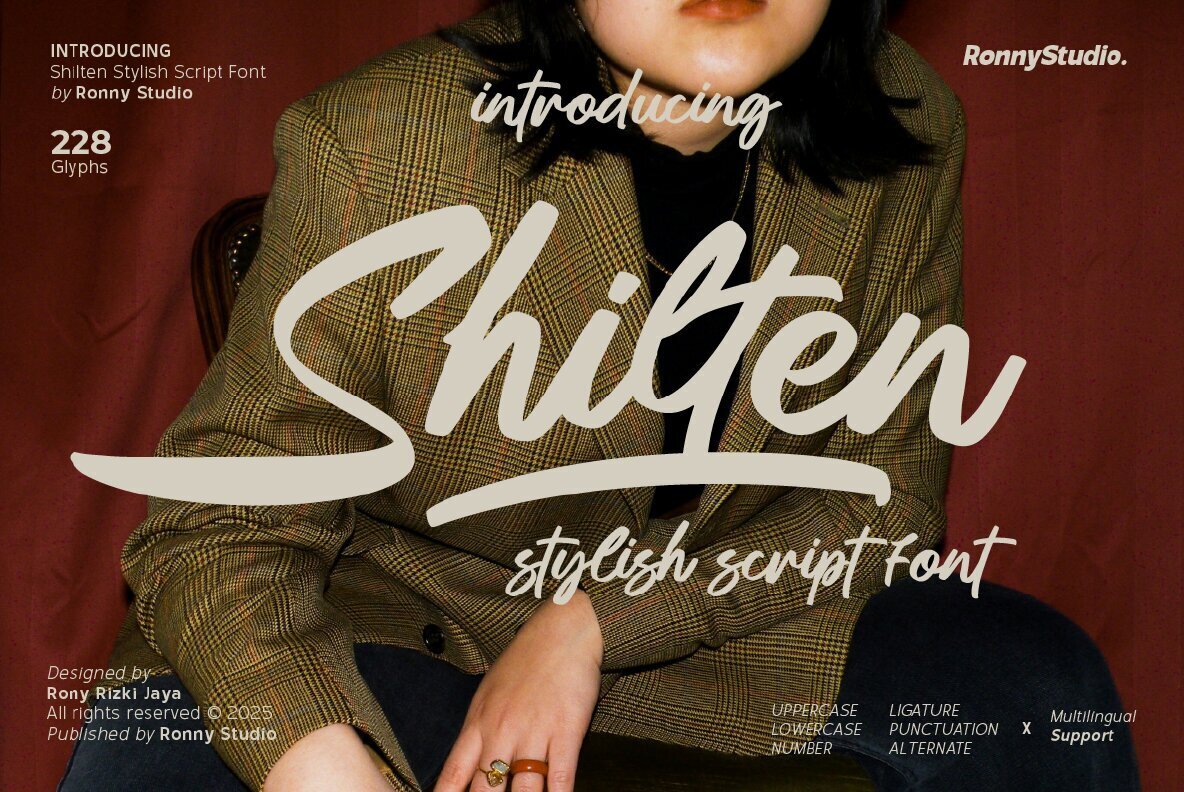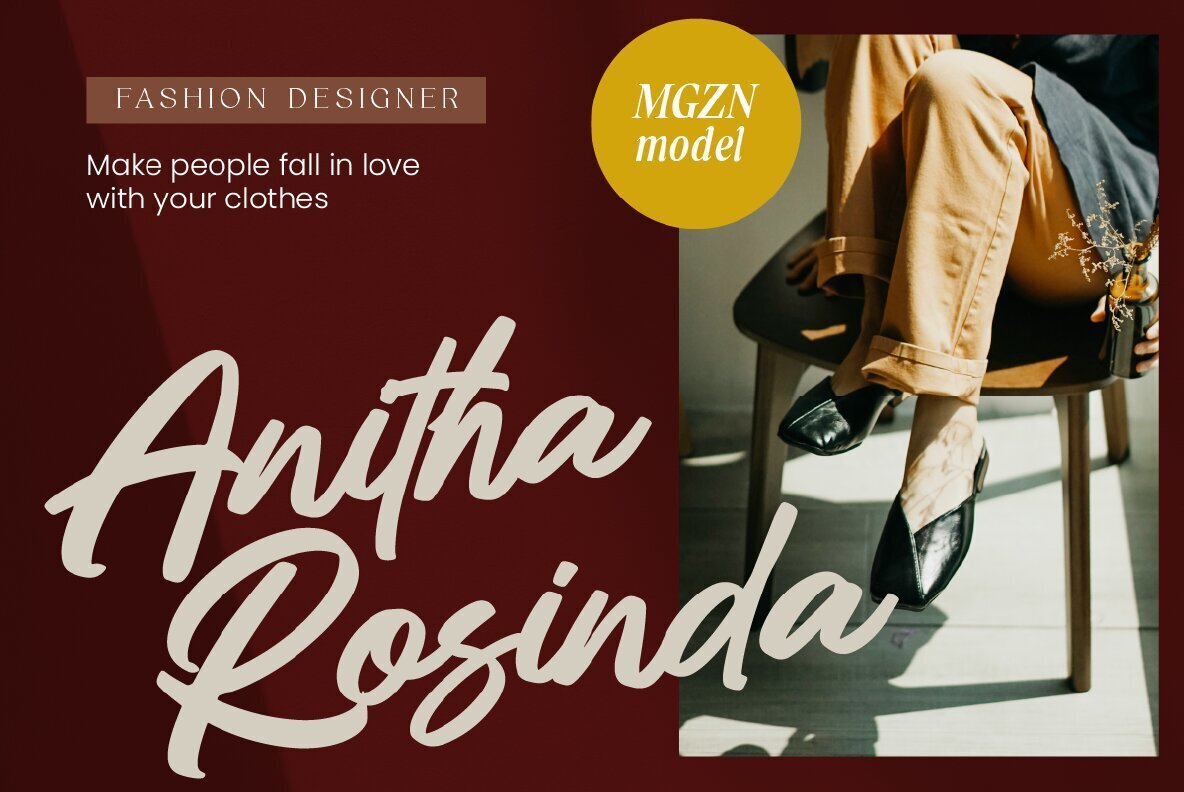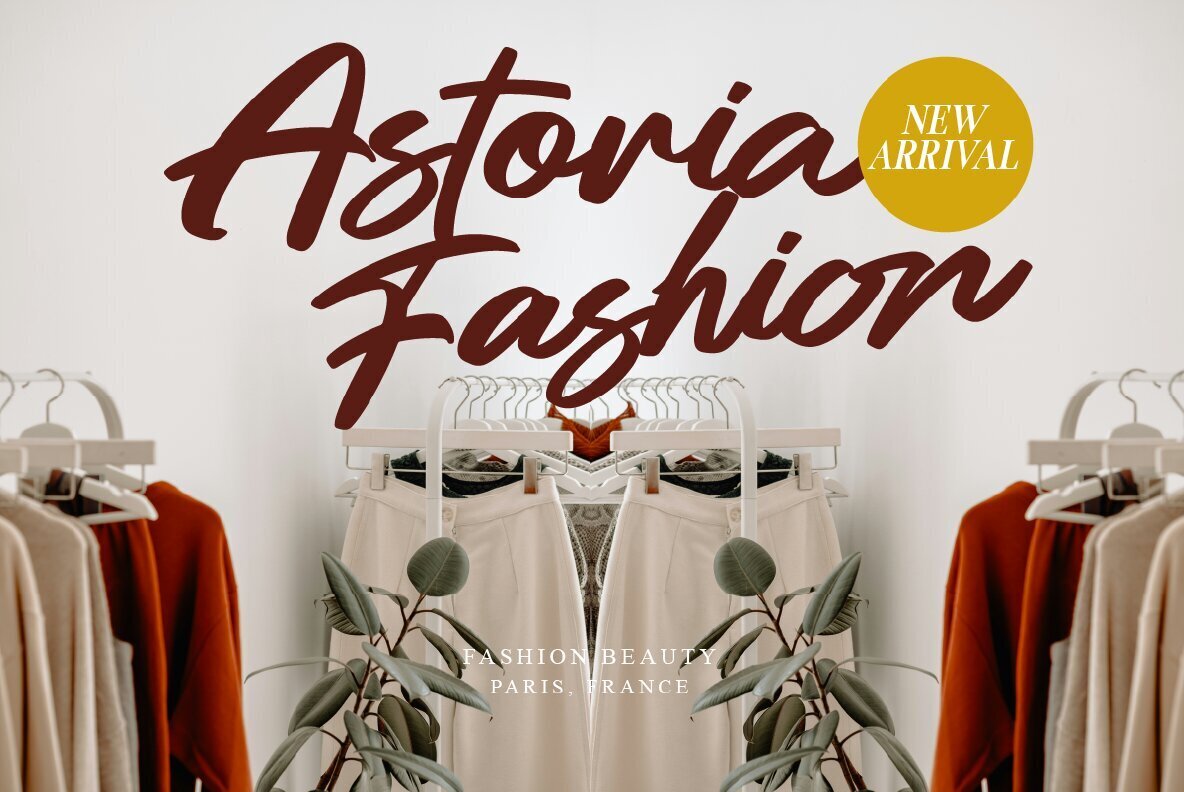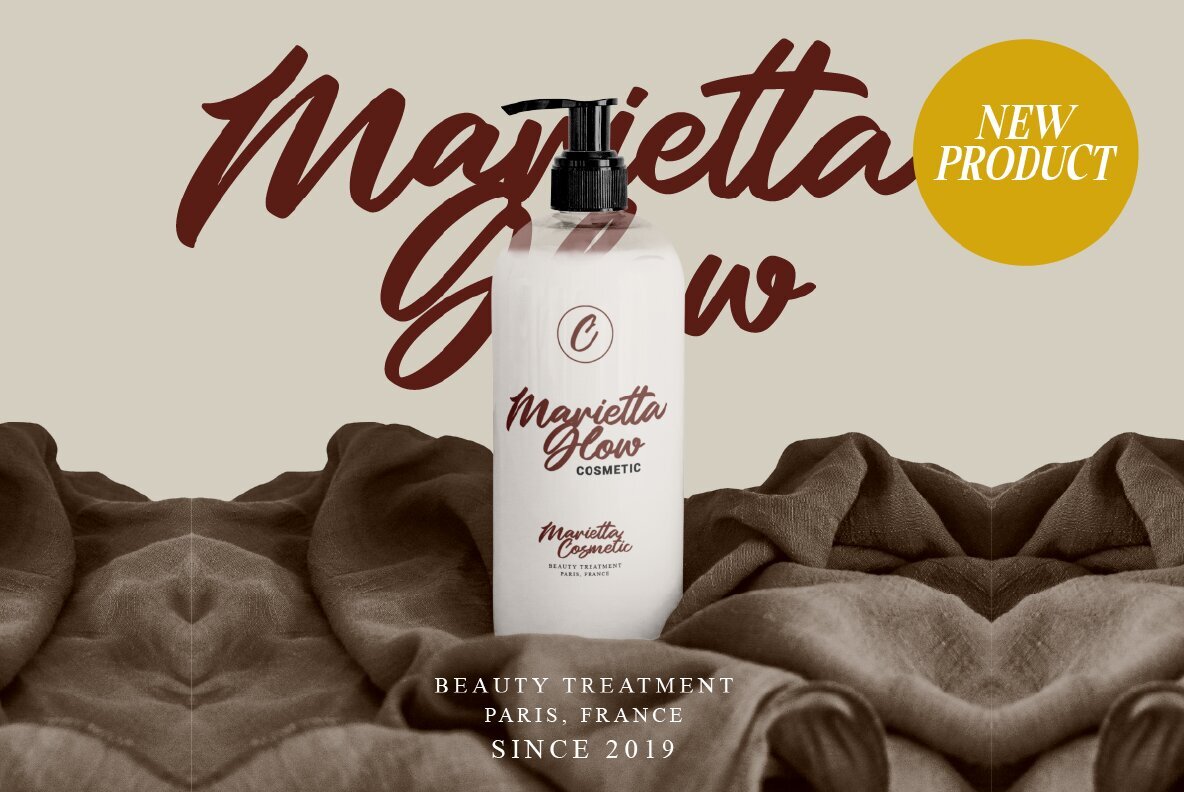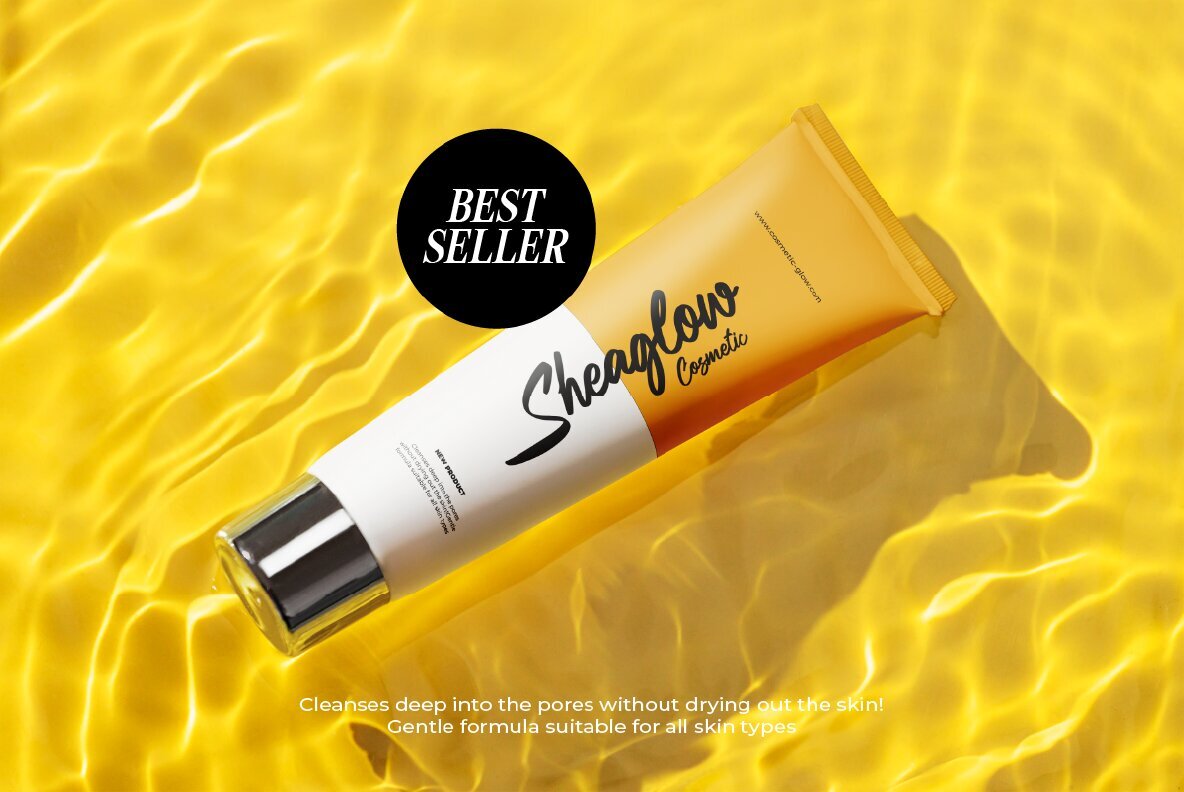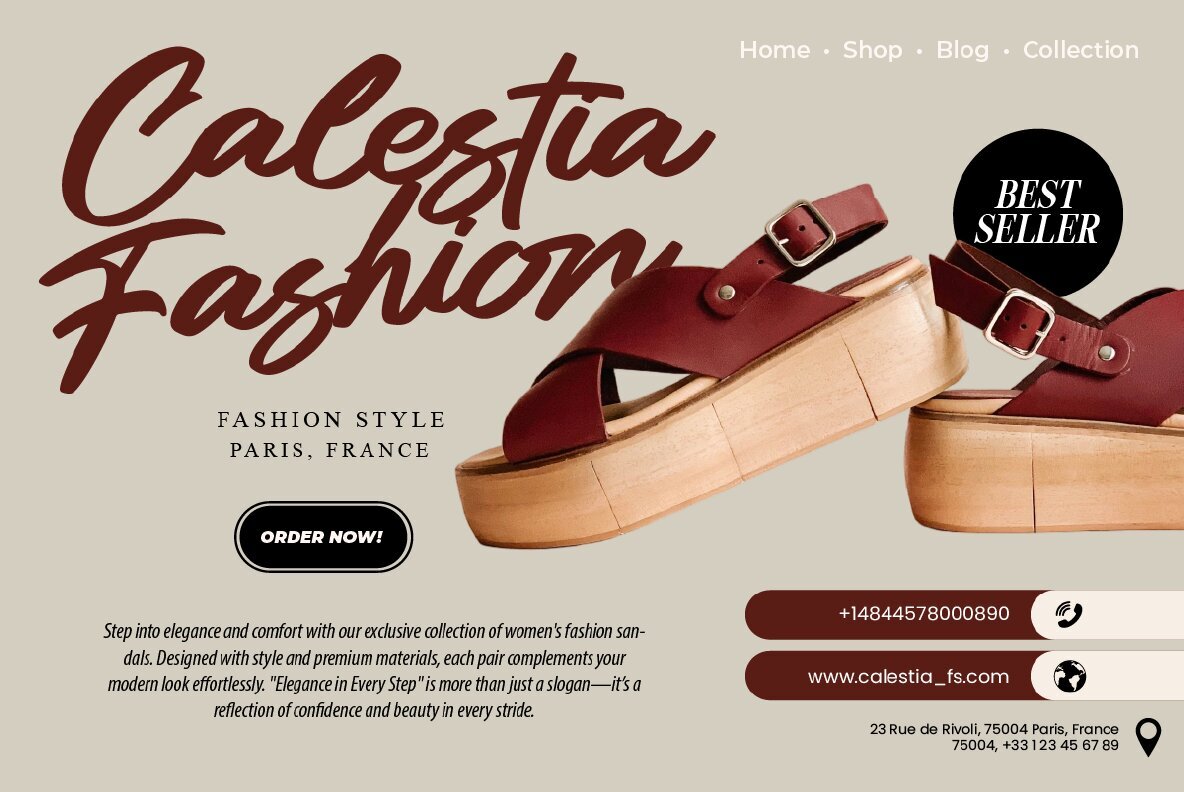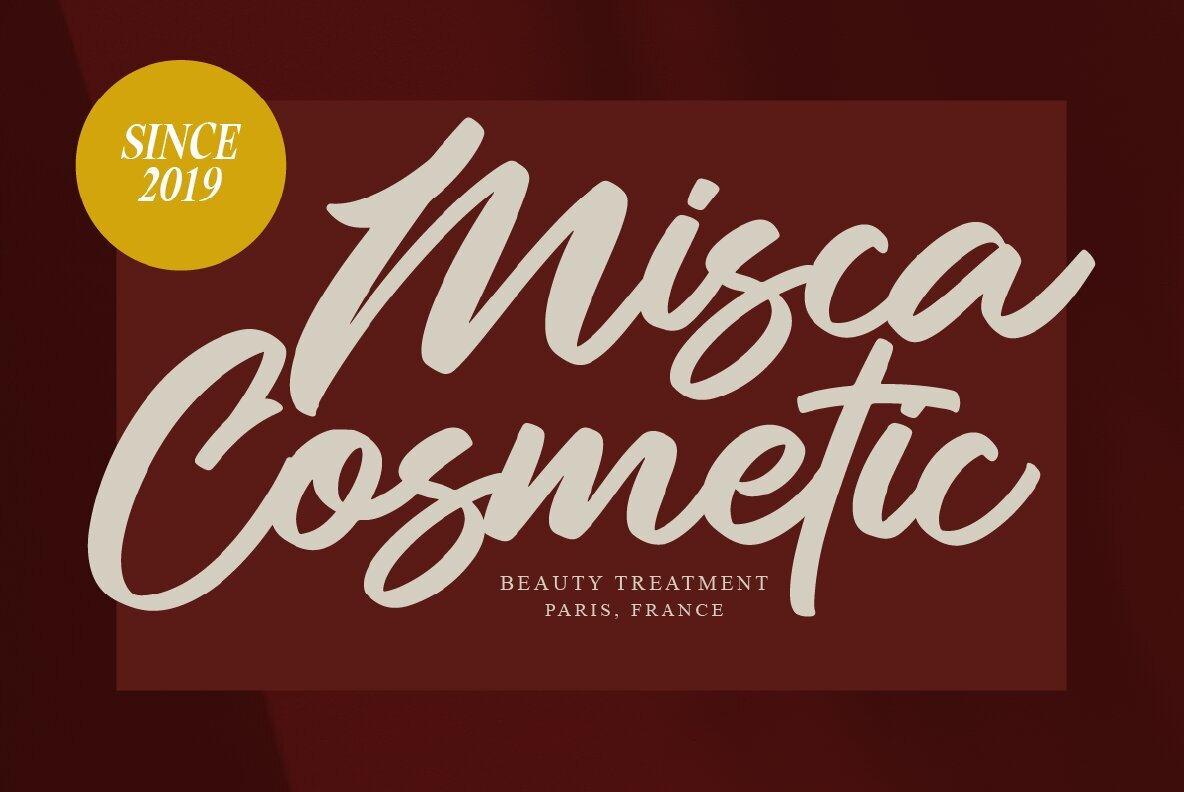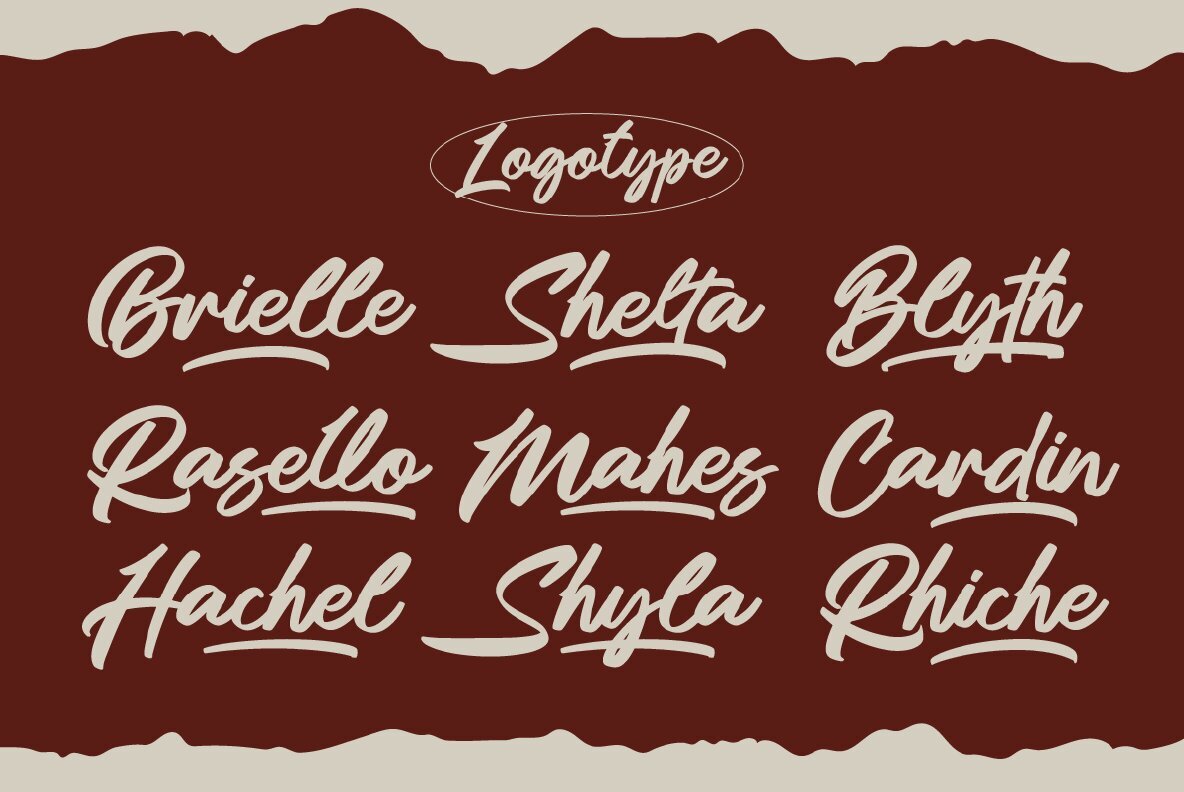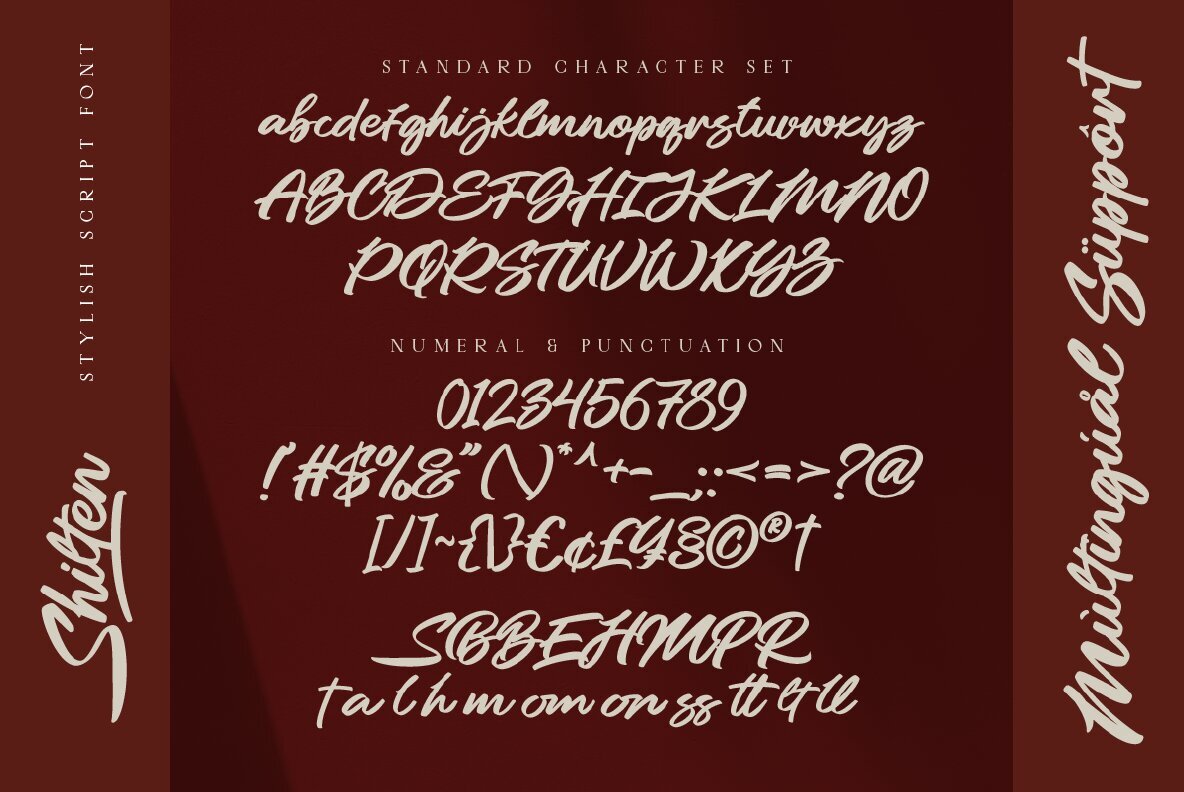
Shilten Font
Shilten Script Font is a modern script font with a natural, elegant, and dynamic touch. Designed to deliver a stylish and professional look, it’s perfect for logos, branding, quotes, product packaging, merchandise, and social media posts. With a perfect balance of modern style and handwritten charm, Shilten Script Font adds a luxurious and exclusive feel, making your designs stand out and captivate attention. Features:
- numbers & punctuation
- Alternate & Ligature
- Swash & Multilingual